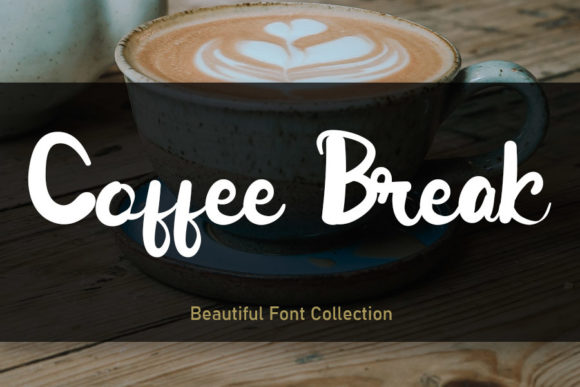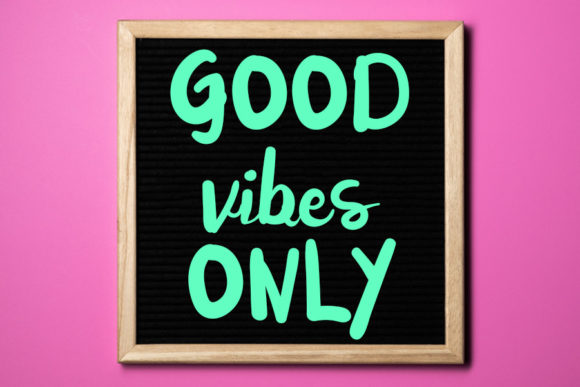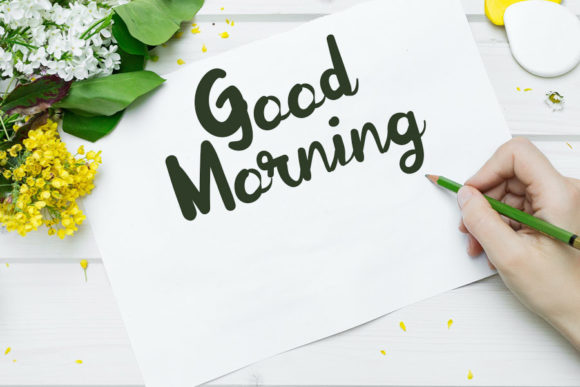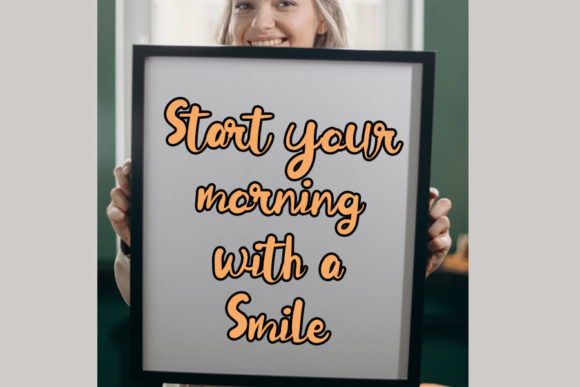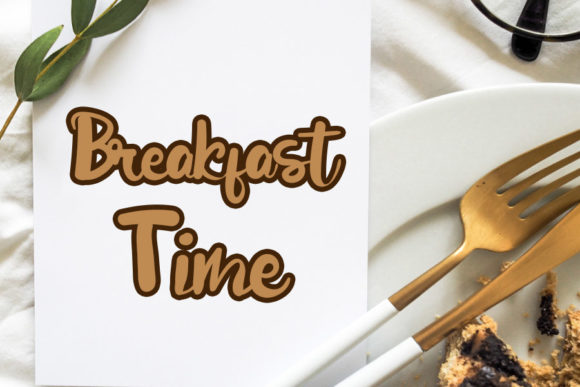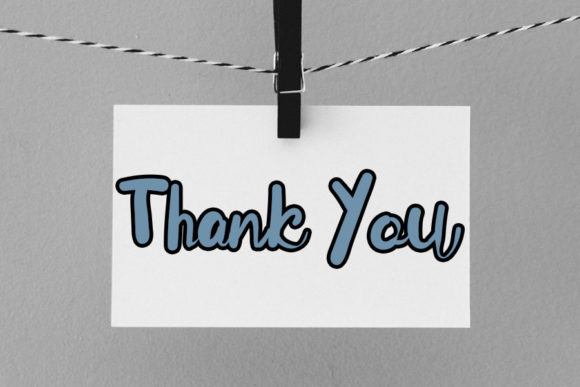
Coffee Break Font
About Coffee Break Font
Coffee Break is a chic and timeless handwritten font. It is the best choice for creating eye catching logos, branding and quotes. Every letter has a unique and beautiful touch, which will make your design come alive!